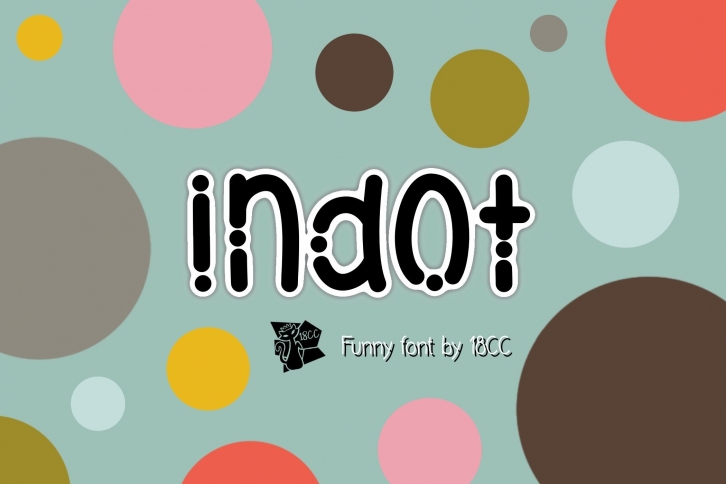
Indot is a cute and friendly display font. This font is the perfect fit for all of your logos, branding, social media, crafty DIY projects, and much more!